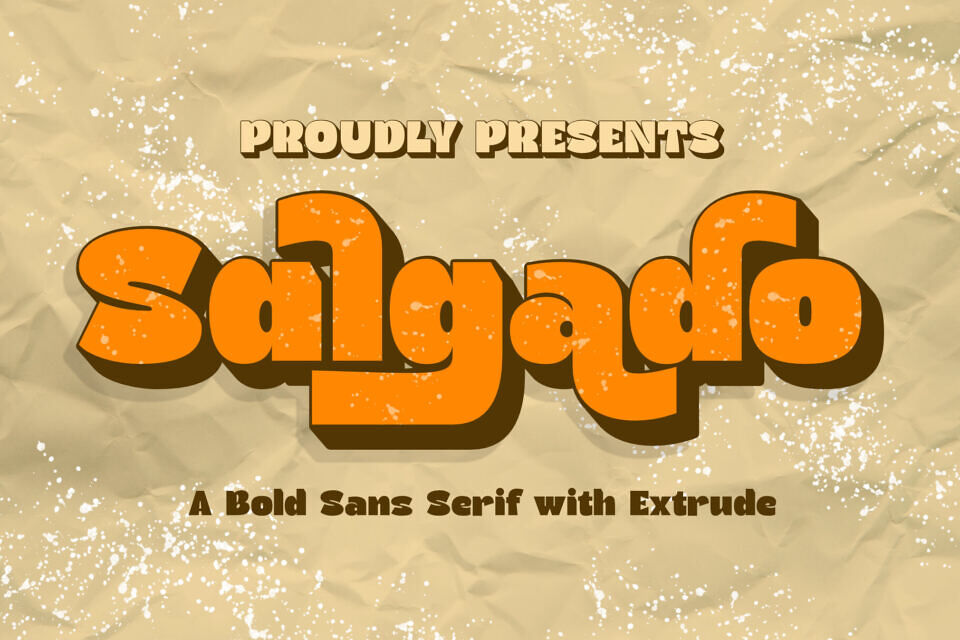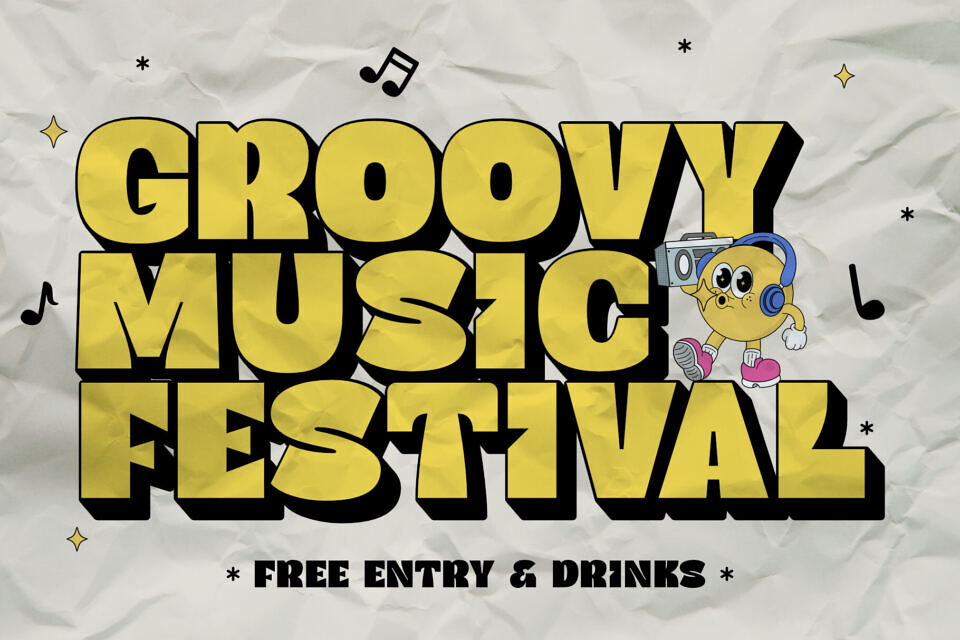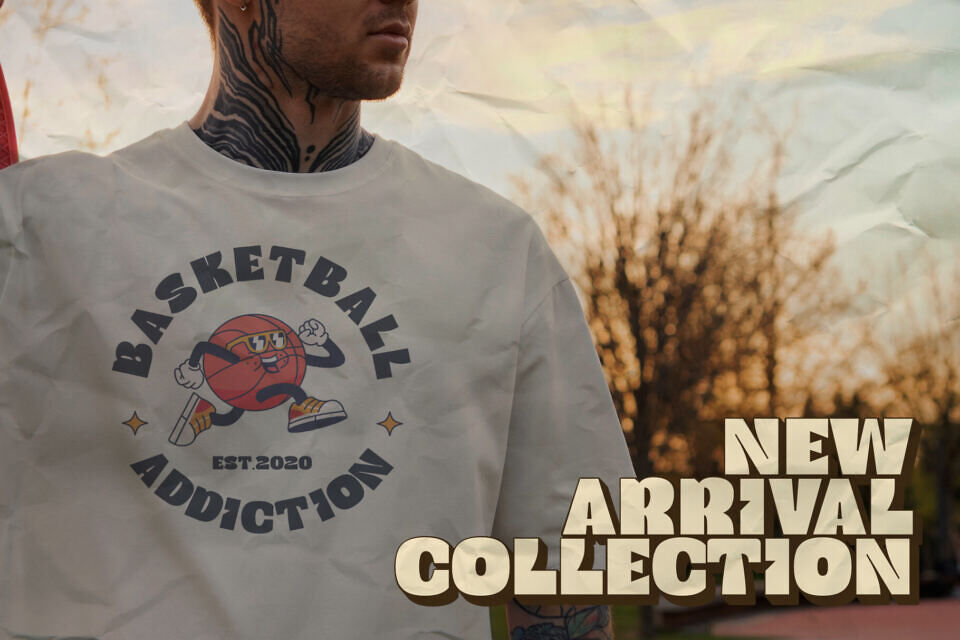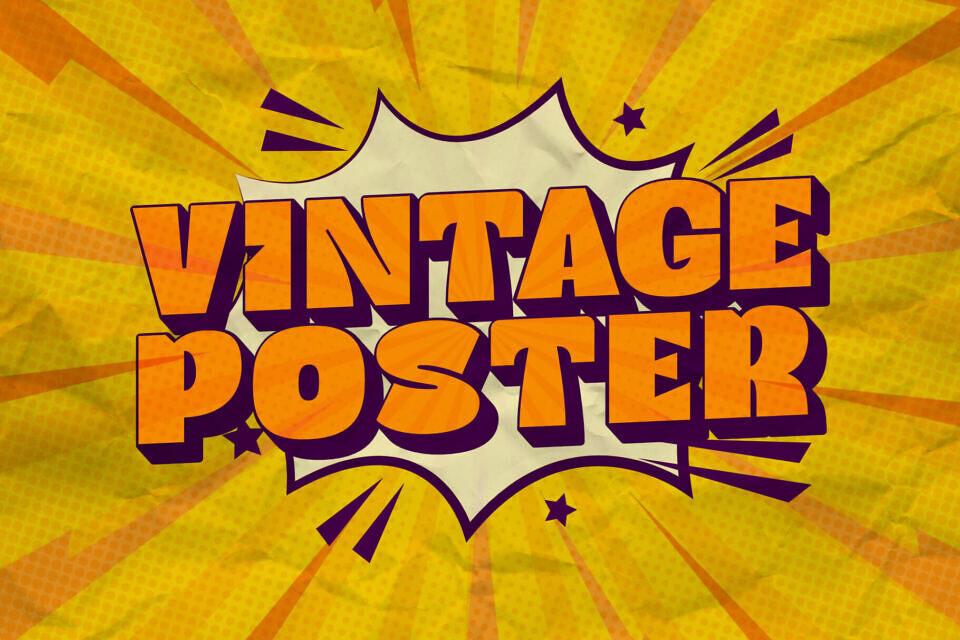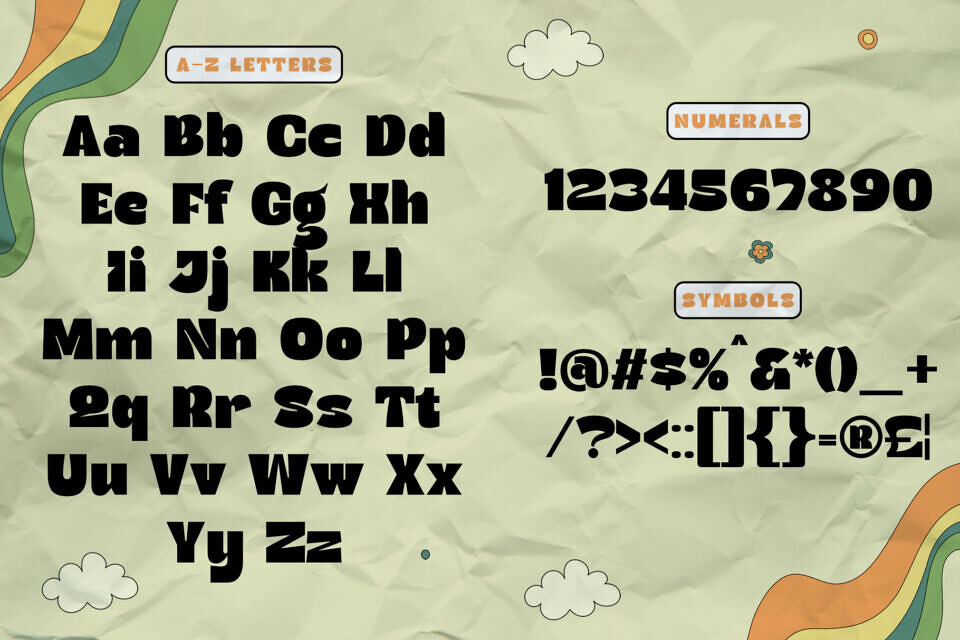
Salgado Font
Unleash your creativity with Salgado, a stunning modern bold sans serif font that exudes confidence and style. With its clean lines and dynamic extrude effect, Salgado brings a contemporary flair to any design project. Perfectly suited for posters, T-shirt designs, branding, and more, this font effortlessly elevates your visuals, making them stand out from the crowd.
Whether you’re aiming for a bold and eye-catching headline or a sleek and modern logo, Salgado delivers versatility and impact. Its strong geometric shapes and balanced proportions make it a reliable choice for a wide range of design purposes, ensuring your message is conveyed with clarity and precision.